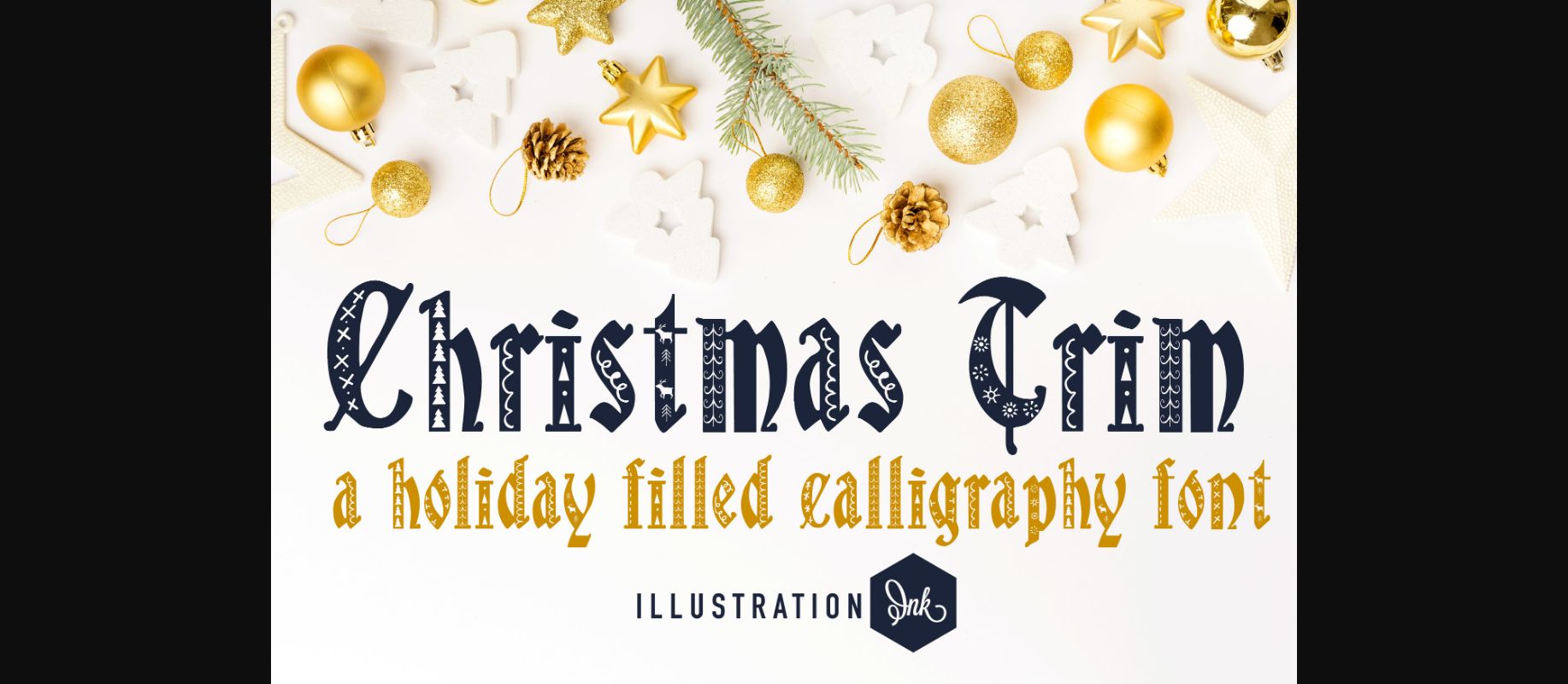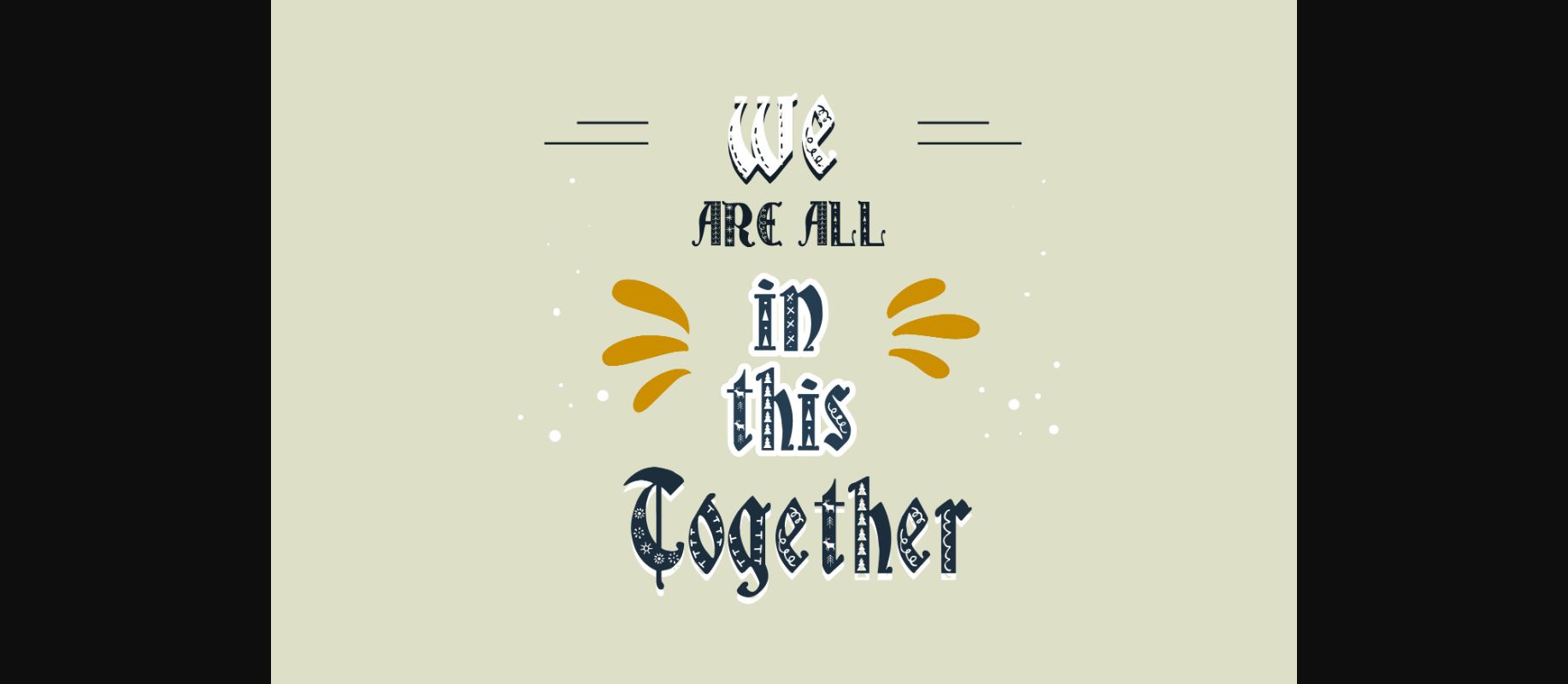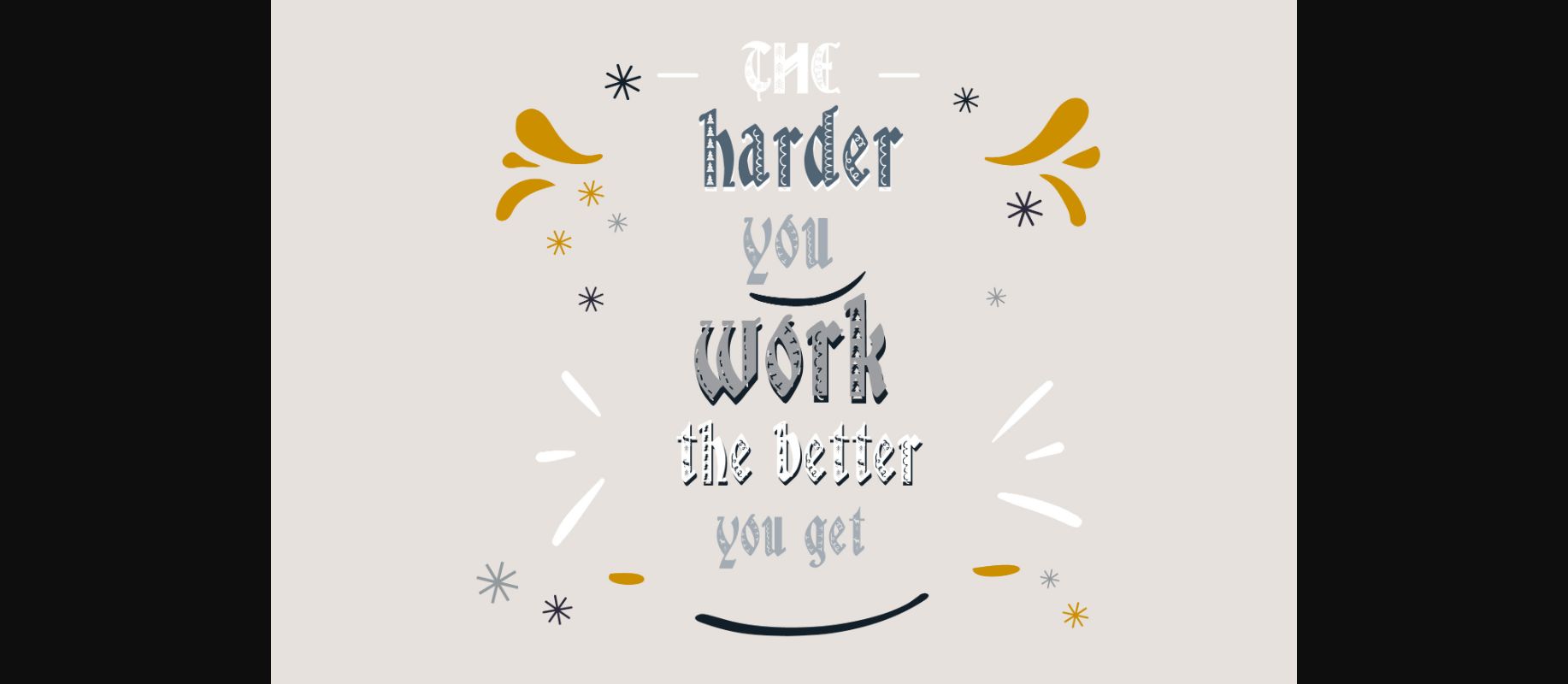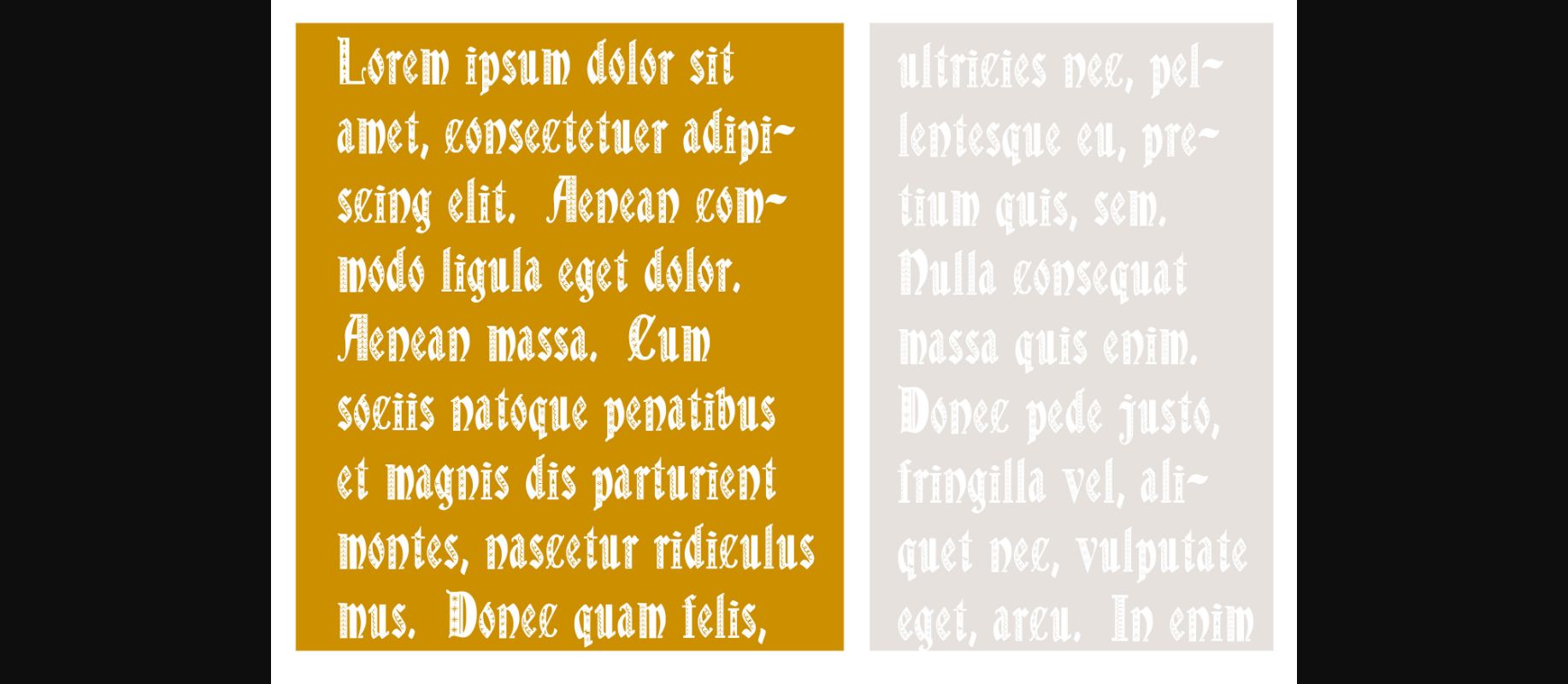
About Christmas Trim Font
Christmas Trim is a sweet and festive decorative font. Cute and stylish, this font will brighten up each of your designs. Add it confidently to your projects, and you will love the results.